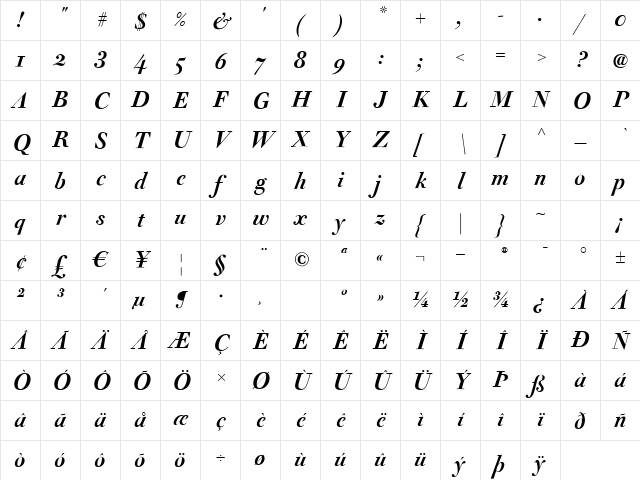
Acanthus Italic Free Font
Acanthus Italic
Foundry: Akira Kobayashi, . Published by FontShop International. FontFont Release
Design Context for Acanthus
Acanthus is a composed and adaptable typeface that performs quietly and consistently across a wide range of design contexts. The slanted form adds forward momentum and visual energy.
Pro Tip: Use Acanthus for emphasis, pull quotes, and subheadings where its slanted energy can add rhythm to the layout.
Who designed the Acanthus Italic font?